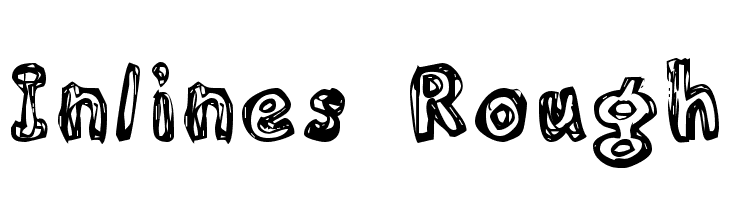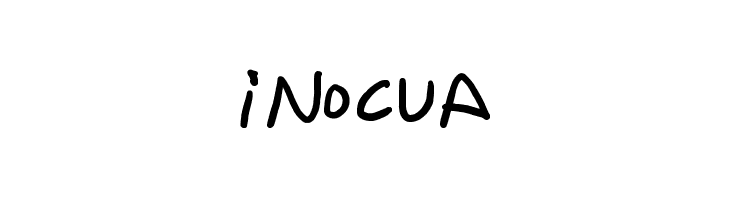
• Inlines Rough 字体
A bold, hand-drawn font with a rough, textured style and playful character.
• Inmodify Regular 字体
A geometric, angular font with bold lines and a modern, futuristic style.
• Inner Vintage Personal Use 字体
A bold, vintage script font with flowing curves and decorative swashes.
• Innocent 字体
A cursive, handwritten-style font with elegant, flowing characters.
• InnsmouthPlain 字体
A whimsical, decorative font with swirling embellishments and a hand-drawn feel.
• Inocua 字体
( Andres Benjumea )
A playful, casual handwritten font with smooth, flowing curves.
• INOVATION 字体
A bold, angular font with a futuristic and edgy design.
• INOVATION Bold 字体
A bold, angular font with a futuristic and dynamic design.
• INOVATION-Hollow 字体
A hollow, angular font with a geometric and futuristic style.
• INOVATION-Hollow-Inverse 字体
A bold, hollow, inverse font with a modern, geometric design.